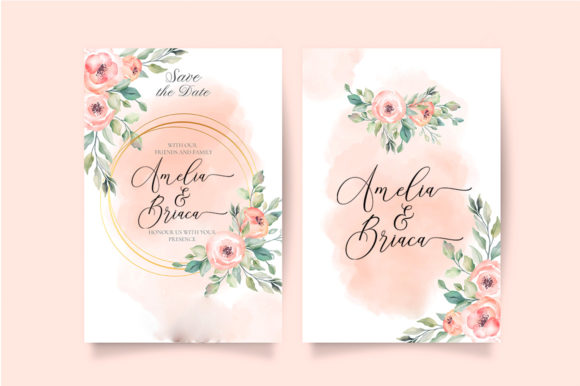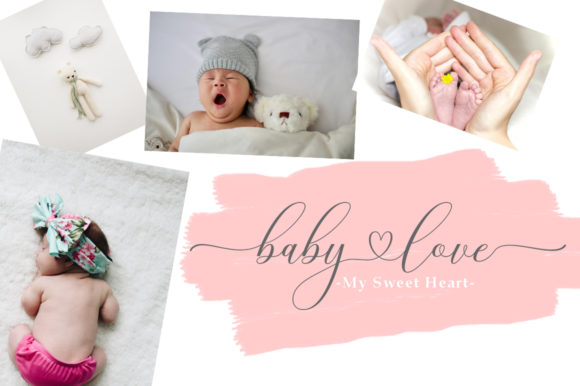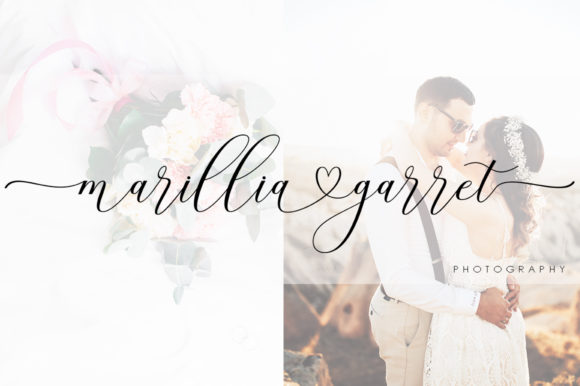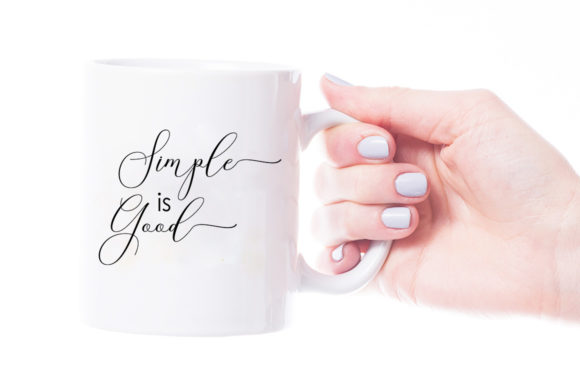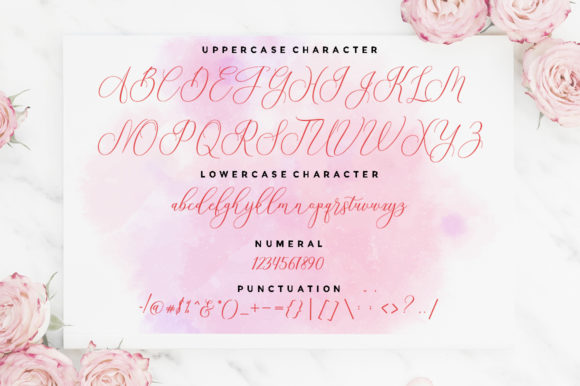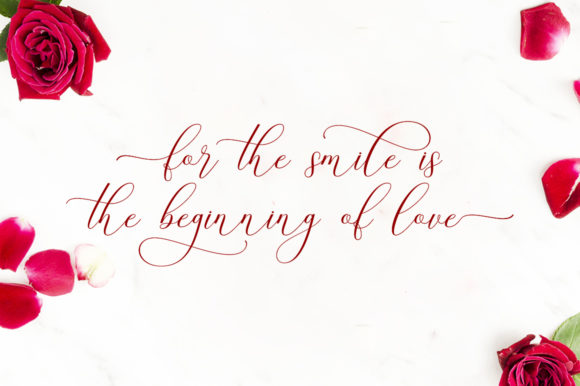
The Perfect Script for Your Next Masterpiece
Have you ever sat down with a blank sheet of paper, a pen in hand, and felt the urge to create something truly special? Maybe it was a love letter, a heartfelt apology, or a birthday wish. Whatever it was, you knew exactly what you wanted to say – and how you wanted to say it. For designers, that feeling never gets old. It’s what drives us to seek out the perfect font, the one that captures the essence of our message and brings it to life. Enter the Hello Heart Font, a charming and elegant script that’s perfect for adding a handwritten touch to any design.
With its varying baseline, smooth lines, gorgeous glyphs, and stunning alternates, the Hello Heart Font is a valuable addition to any designer’s toolkit. Whether you’re creating wedding invitations, thank you cards, quotes, or logos, this font is sure to bring a touch of warmth and personality to your work. And with its PUA encoding, you’ll have access to all of its beautiful glyphs and swashes with ease.
Hello Heart Font Key Features
- Unique Characteristics: This font features a unique, hand-drawn design with a touch of elegance, making it perfect for use in creative projects, such as wedding invitations, greeting cards, and more.
Hello Heart Font Review
I recently had the chance to work with the Hello Heart Font, and I must say it’s a unique addition to any design project. Here’s what I liked about it: ✨
- Playful vibe: The font has a fun, whimsical feel that’s perfect for projects that need a touch of personality.
- Customizable: The font comes with a range of styles and weights, allowing for a high degree of customization.
- Legibility: Despite its playful nature, the font remains highly legible, even at smaller font sizes.
- Limited use in formal settings: The font’s playful vibe may not be suitable for formal or professional projects.
- Some letterforms may be difficult to read: While the font is generally legible, some letterforms may be tricky to decipher, particularly for readers with visual impairments.
- Not ideal for small text: The font’s decorative nature may make it difficult to read in small text sizes.
Overall, I think the Hello Heart Font is a great choice for projects that need a touch of personality. While it may not be suitable for all types of projects, it’s a versatile font that can add a unique touch to your designs.
The Hello Heart Font is ideal for:
Valentine’s Day and romantic-themed designs.
Baby and children’s product labels and packaging.
Any design requiring a playful, whimsical touch.
Tips for Getting the Most Out of the Hello Heart Font
Combine the Hello Heart Font with other playful fonts for a unique look.
Use the font in conjunction with bold, bright colors for maximum impact.
Experiment with different font sizes and styles to add visual interest.